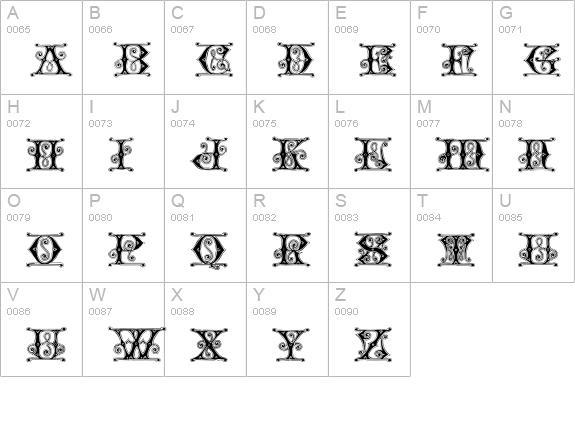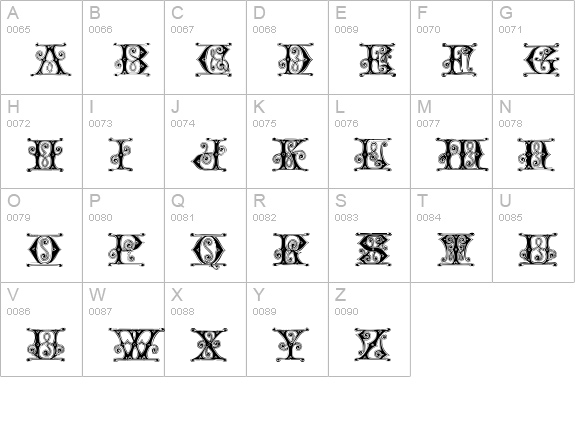
Arberth Font Details
Arberth font is a stunning display typeface that exudes elegance and sophistication. Its intricate details and graceful curves make it perfect for adding a touch of refinement to any design project. The timeless charm of Arberth font is sure to captivate and delight anyone who lays eyes on it. What makes Arberth font even more appealing is that it is available for free download at FontsMarket.com. This means that you can easily access this beautiful typeface and use it in your creative endeavors without any cost. Whether you're designing a logo, creating invitations, or working on a branding project, Arberth font is a versatile and eye-catching choice that will elevate your work to new heights. Download Arberth font today and let its beauty inspire your next masterpiece.